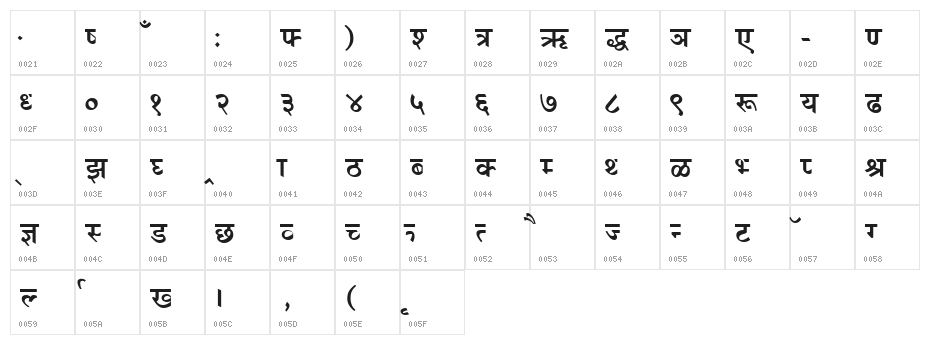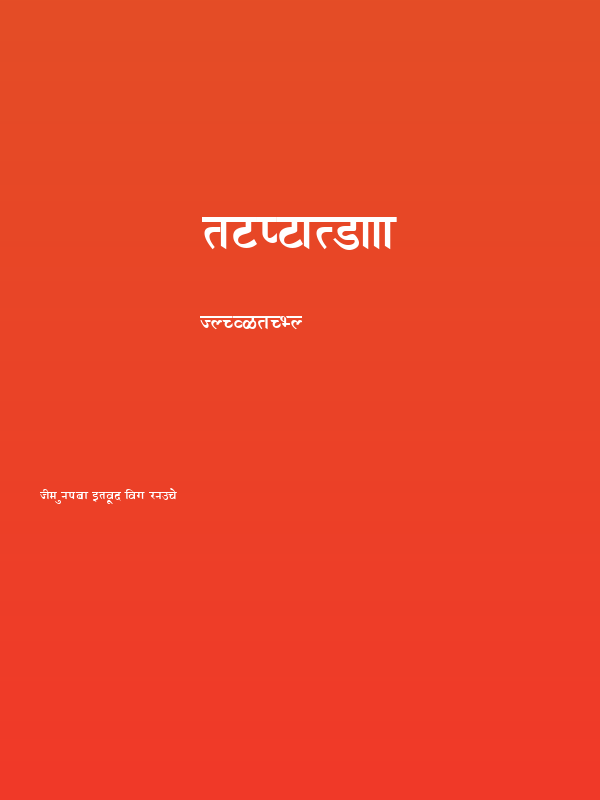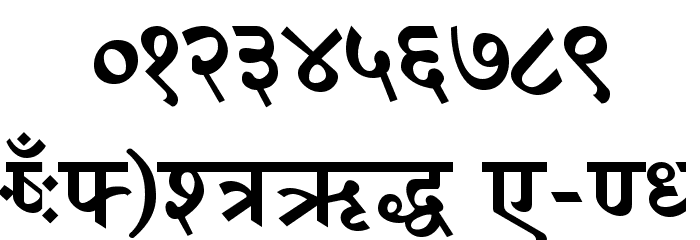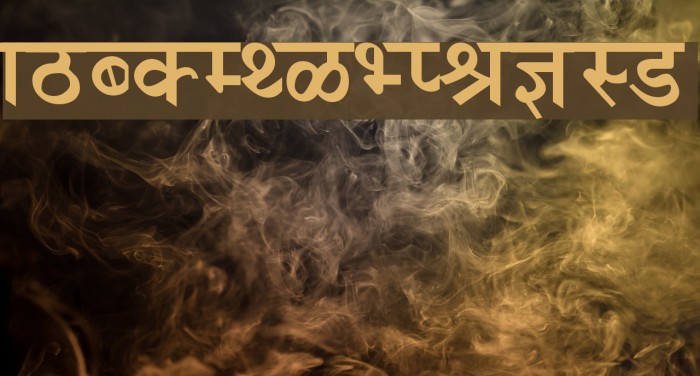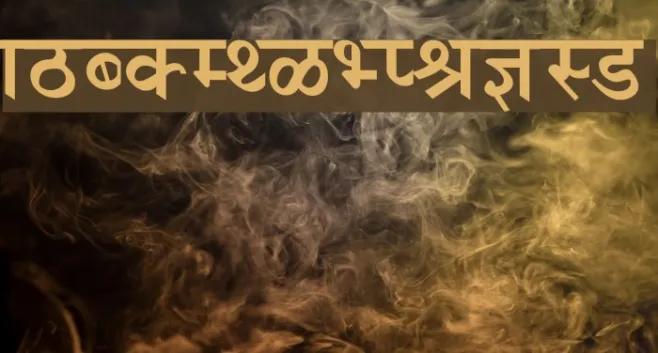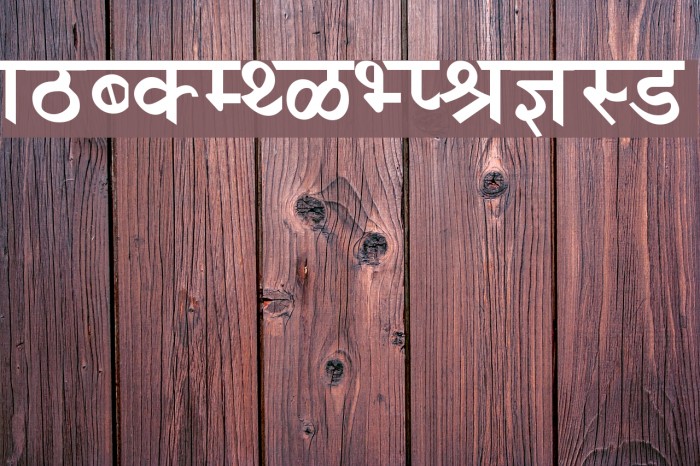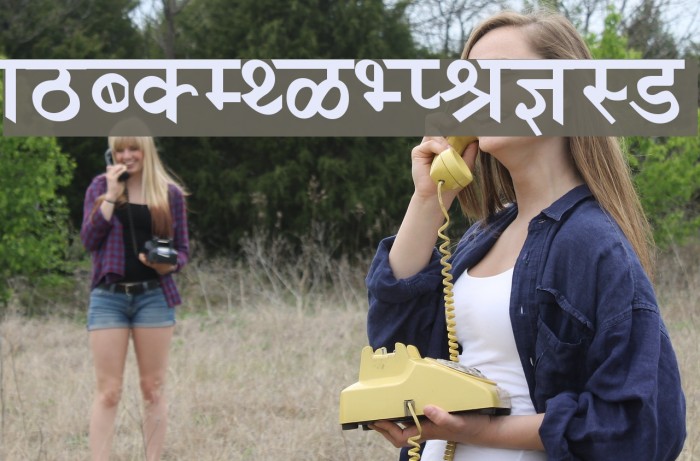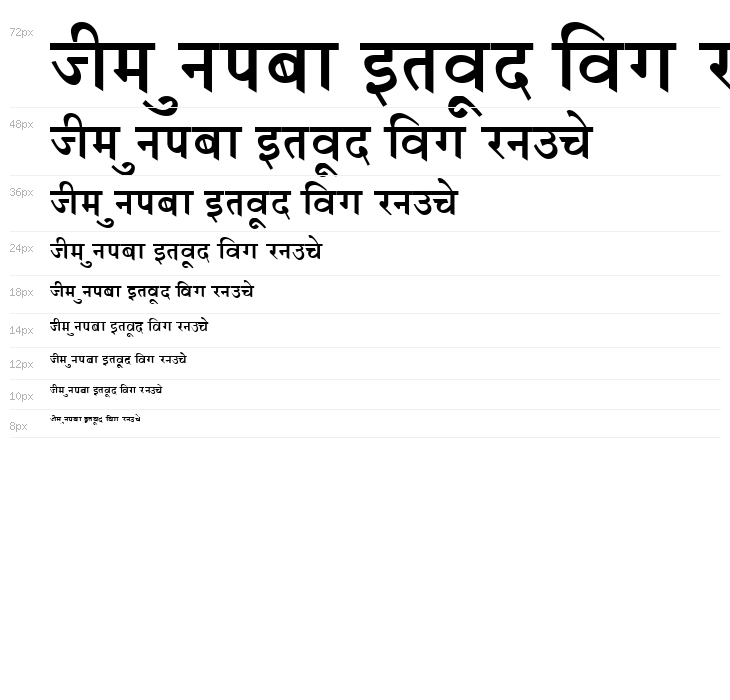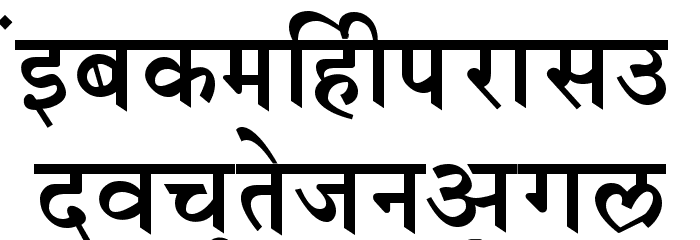
RaviVarmaAA Font
RaviVarmaAA Description
This font features a traditional Devanagari script with bold, clear strokes that emphasize readability and cultural authenticity. The characters are well-defined with a consistent weight, making them suitable for both digital and print media. The script maintains a classic look with slight modern touches, ensuring it appeals to a wide audience. The numerals are distinct and easily recognizable, aligning well with the overall style of the script. Special characters are included, providing versatility for various uses.
| Use Case | Headlines, Body text, Educational materials |
| Proposed Projects | Ideal for cultural publications, educational materials, and digital content that requires a traditional yet modern Devanagari script. |